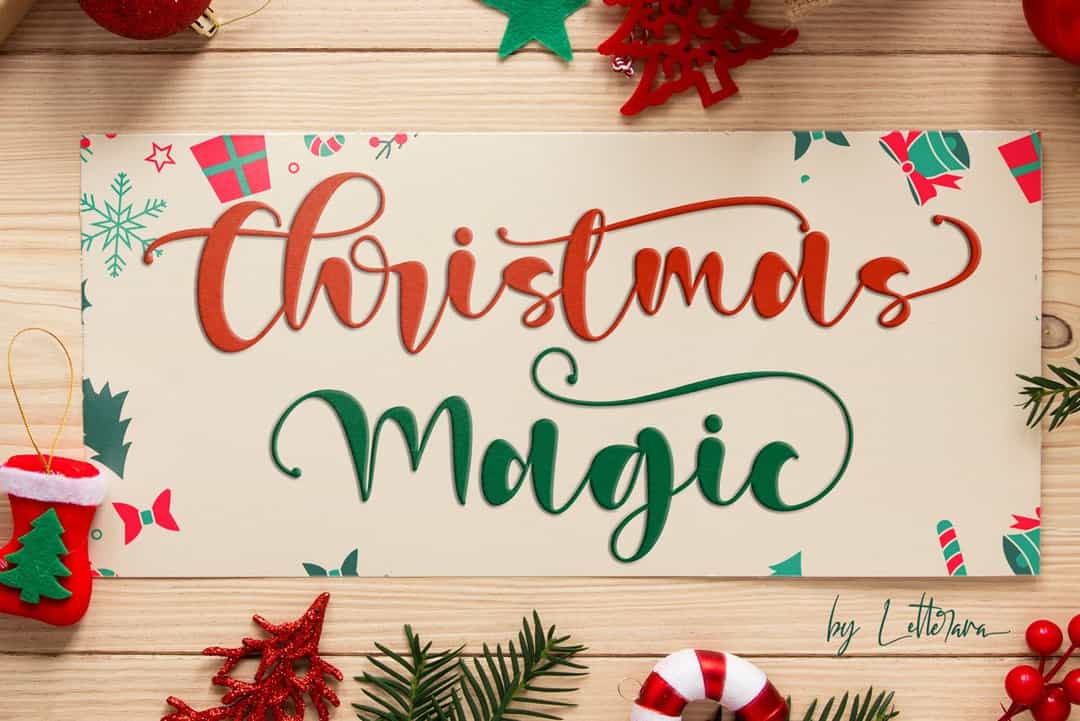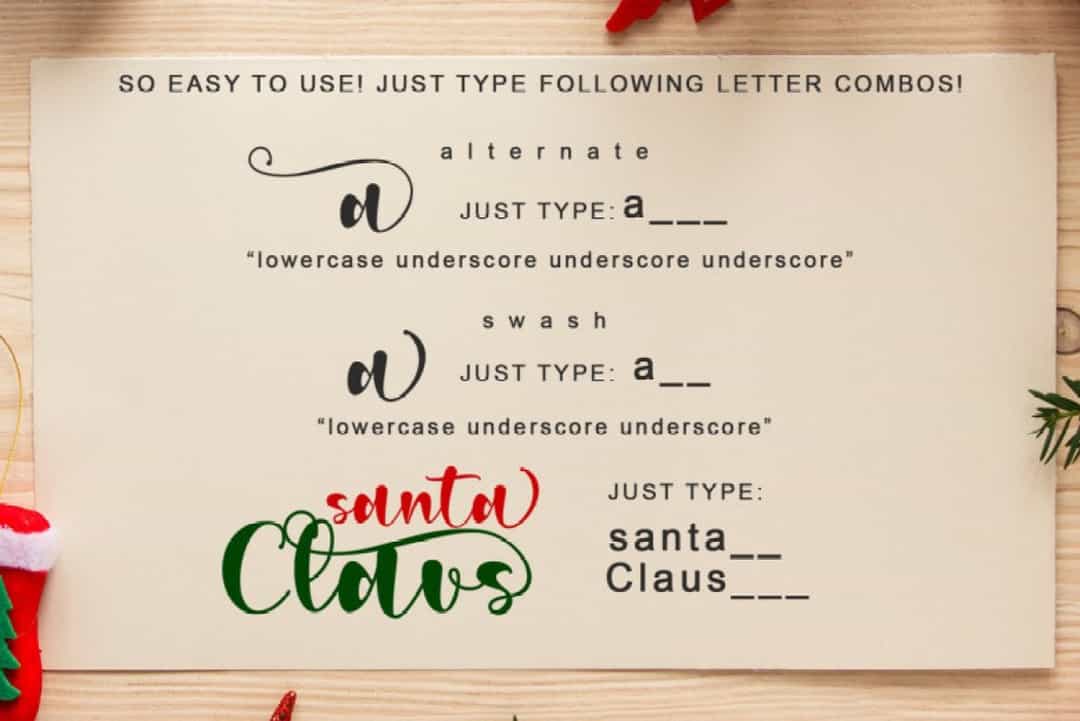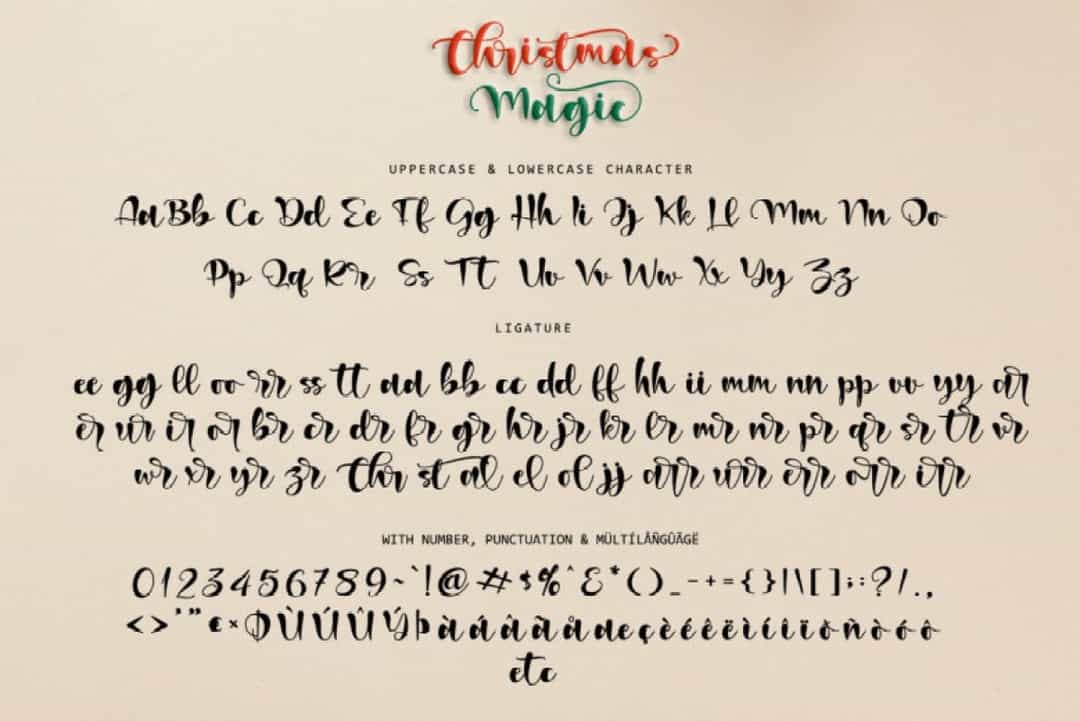
Meet the beautiful and flexible calligraphy font named Christmas Magic – it is encoded with PUA, so you’ll easily find all the glyphs and swashes available! Also, its alternate and swash functions were designed to work efficiently with Silhouette software and come with different baseline smooth lines, beautiful images, and exquisite alternates – making this font look flawless!